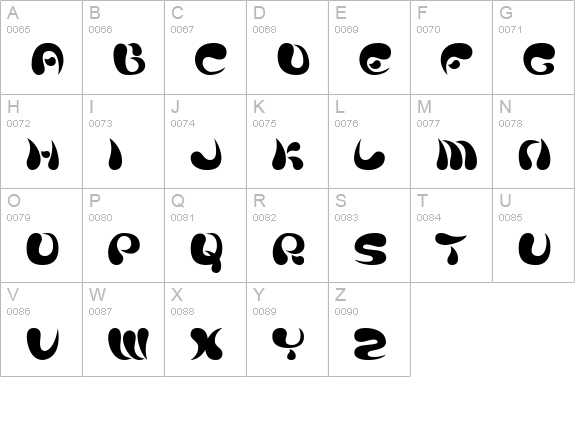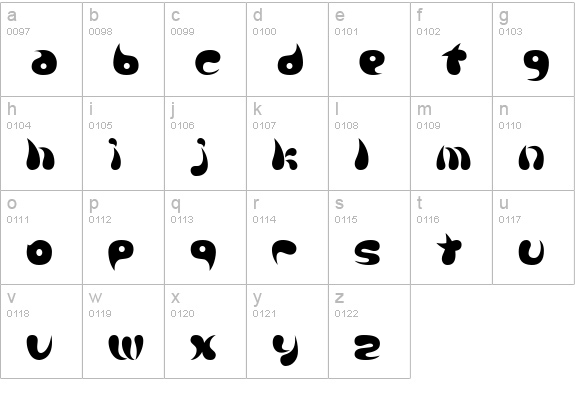
Parade20A Font Details
Introducing Parade20A, a captivating font that combines elegance and playfulness in perfect harmony. This unique typeface is sure to catch the eye and add a touch of whimsy to any project. Parade20A boasts a delightful mix of bold, rounded letterforms with subtle flourishes, creating a one-of-a-kind design that is both modern and timeless. With its versatile nature, Parade20A is suitable for a wide range of applications, from headlines and logos to invitations and branding materials. Its clean lines and balanced proportions make it easily readable, even at smaller sizes, ensuring that your message is conveyed with clarity and style. One of the most appealing aspects of Parade20A is that it is available for free. Yes, you read that right – this stunning font can be yours without spending a dime! Simply head over to FontsMarket.com, where you can freely download Parade20A and start using it in your projects right away. Whether you're a professional designer looking to add a touch of creativity to your work or an enthusiast seeking a font that stands out from the crowd, Parade20A is the perfect choice. Its versatility, elegance, and the fact that it is freely accessible make it a must-have addition to any font library. Don't miss out on the opportunity to enhance your designs with the charm and character of Parade20A. Download it today from FontsMarket.com and let your creativity shine.